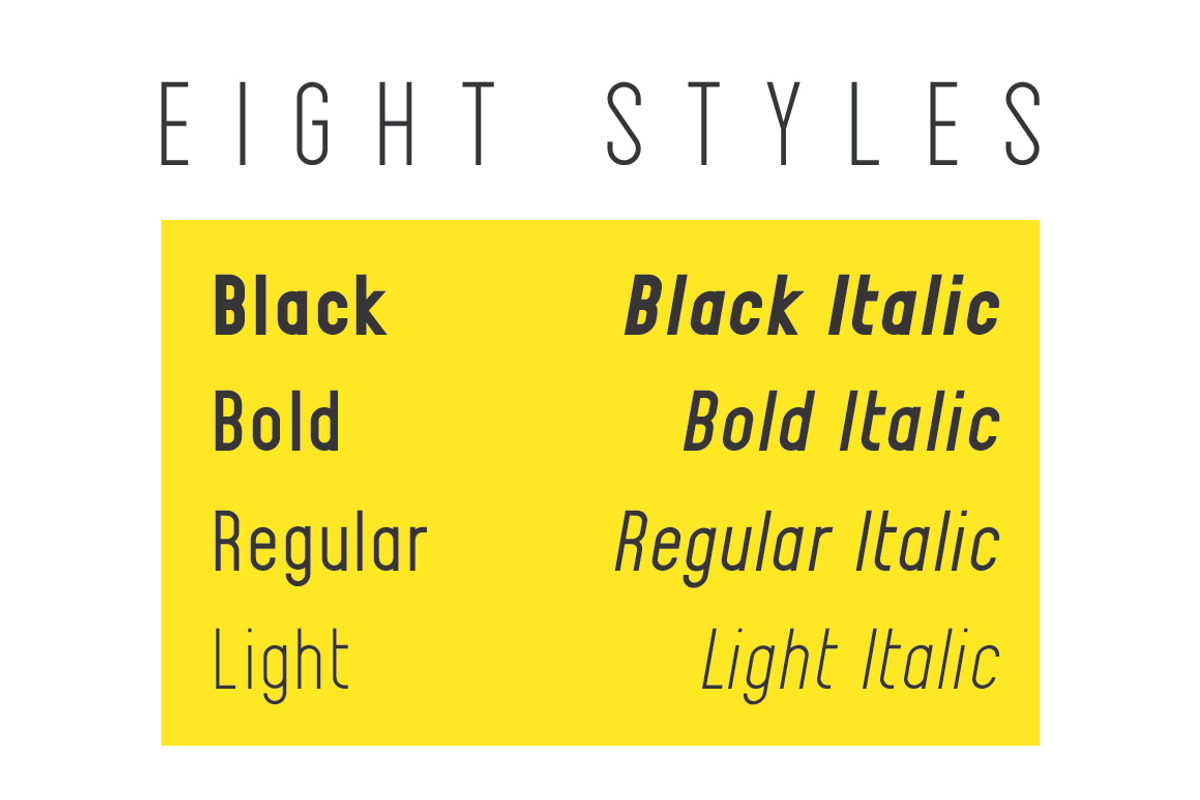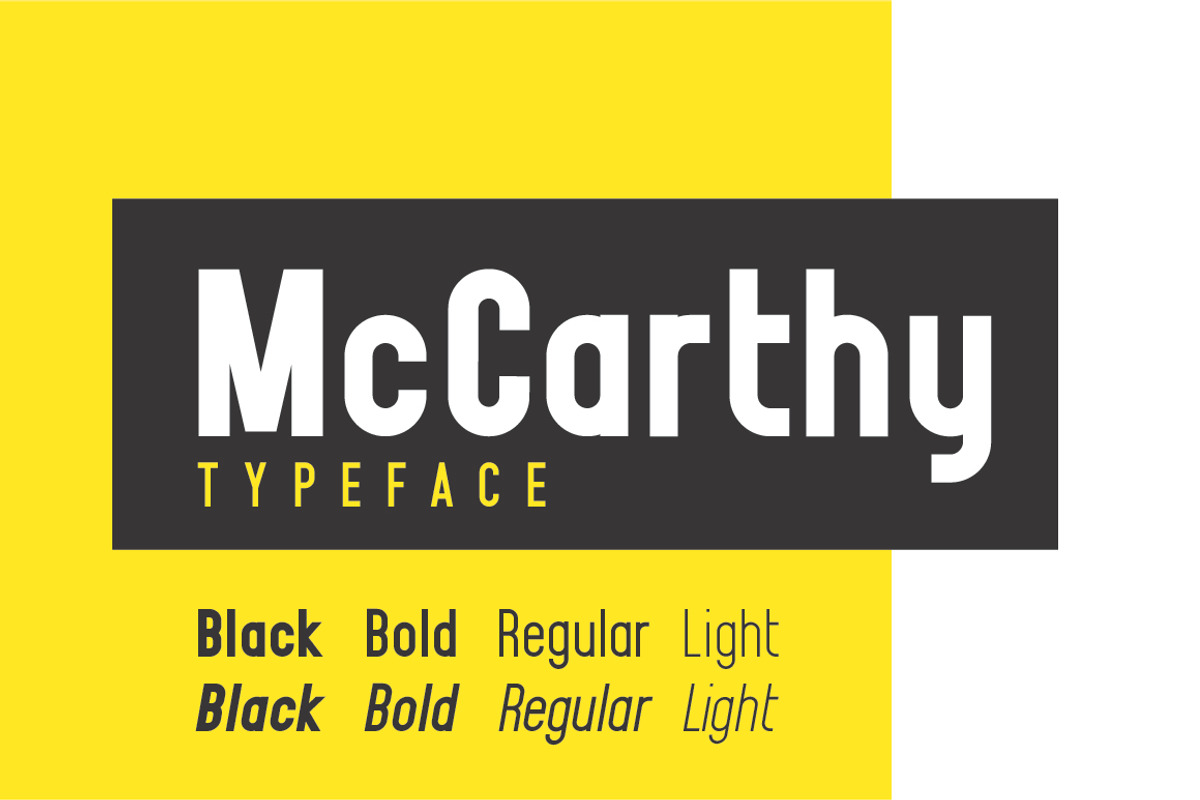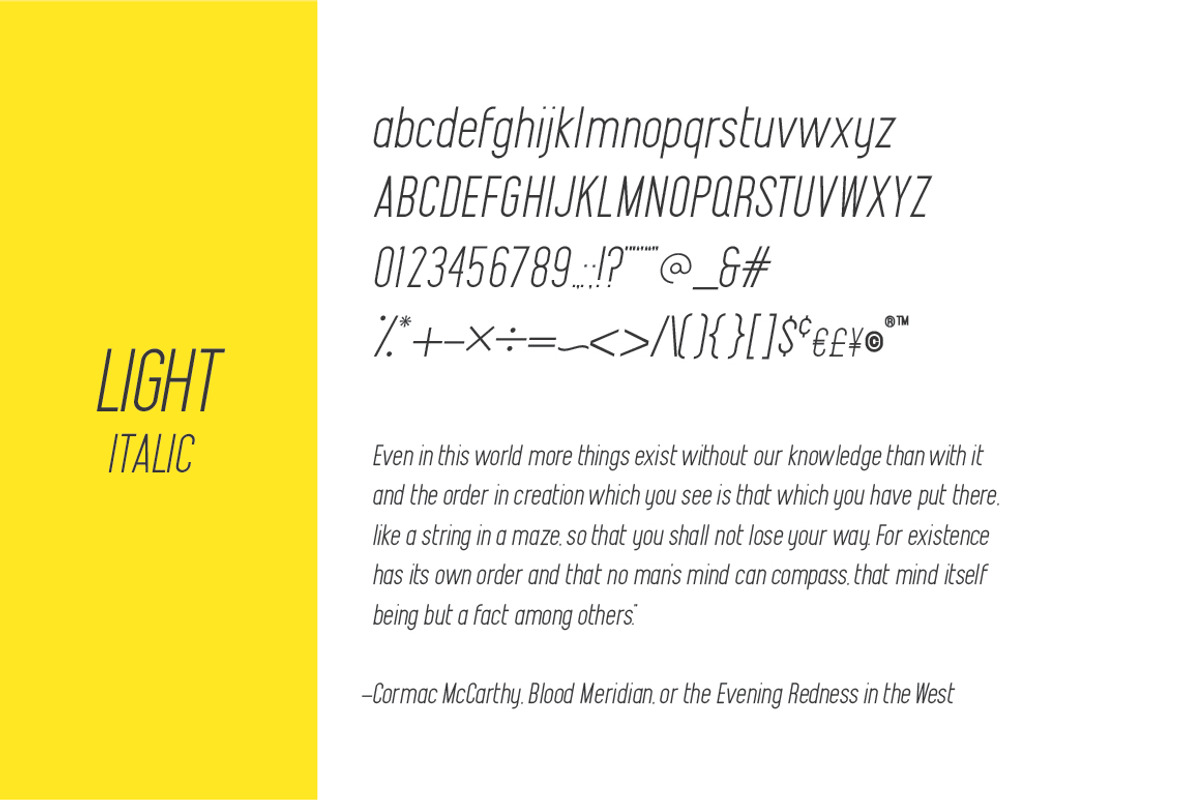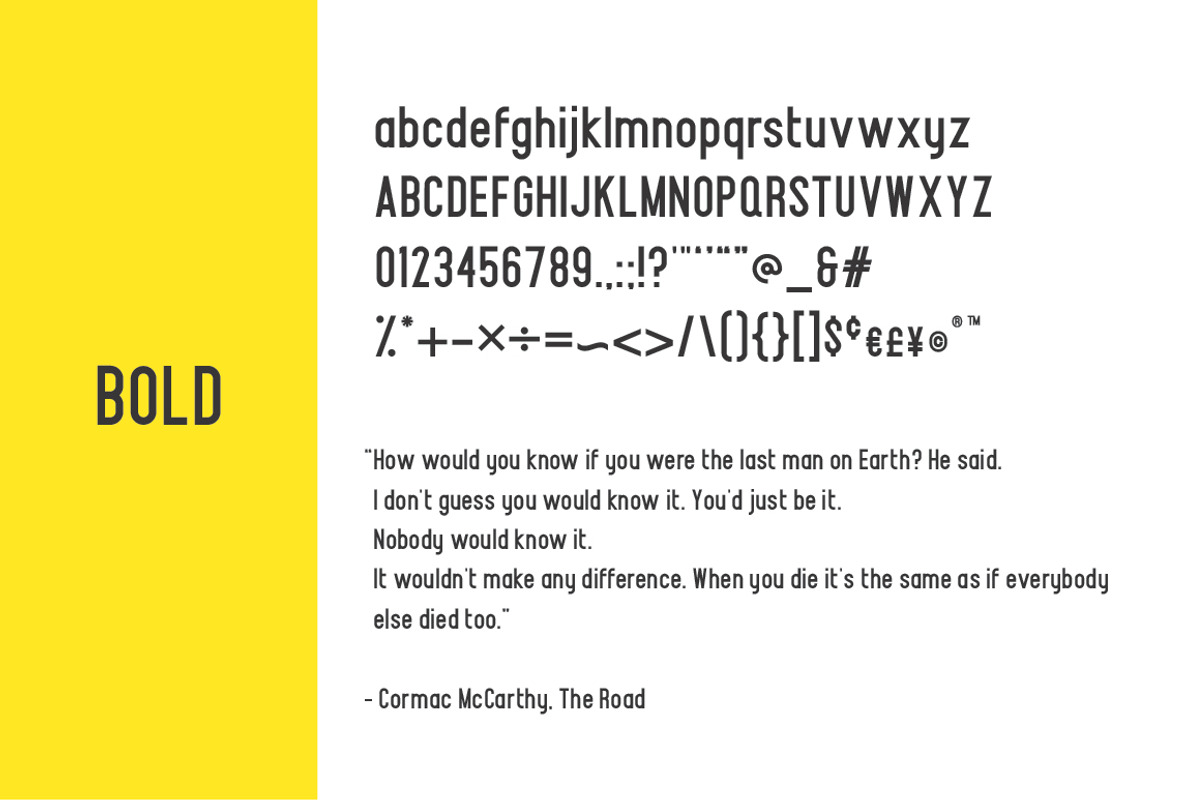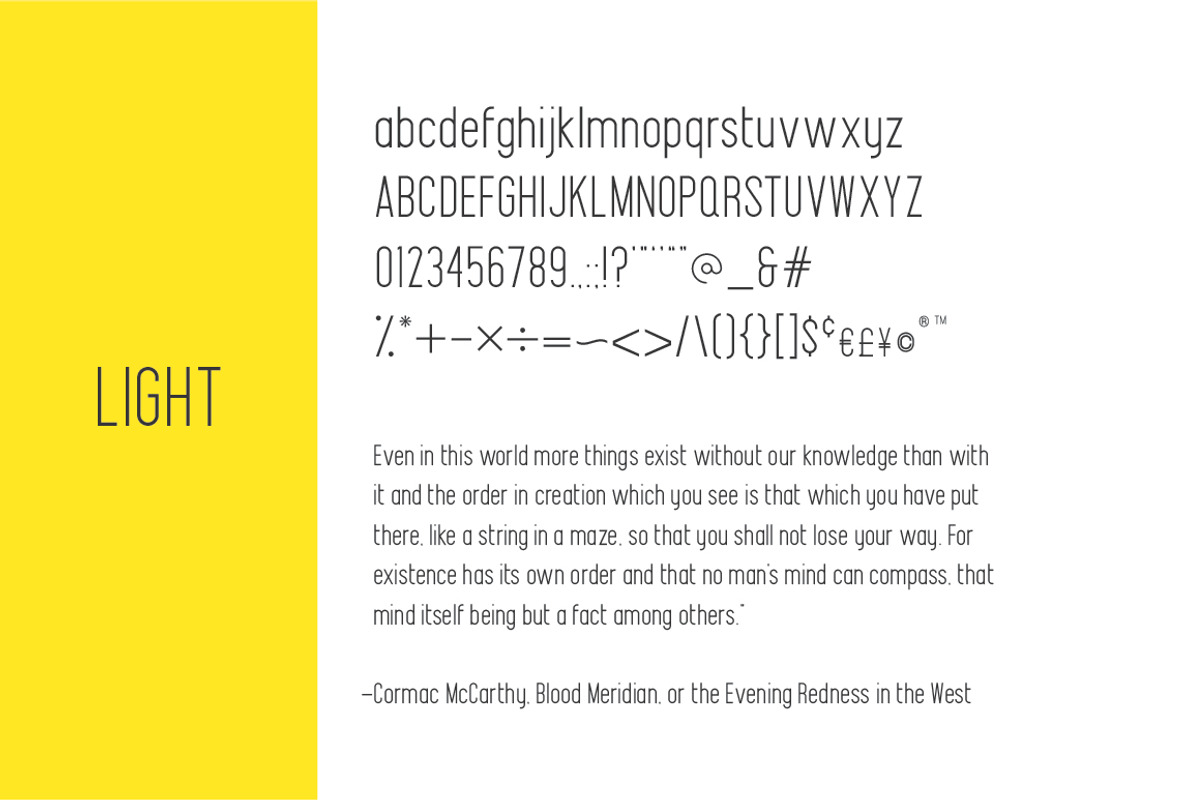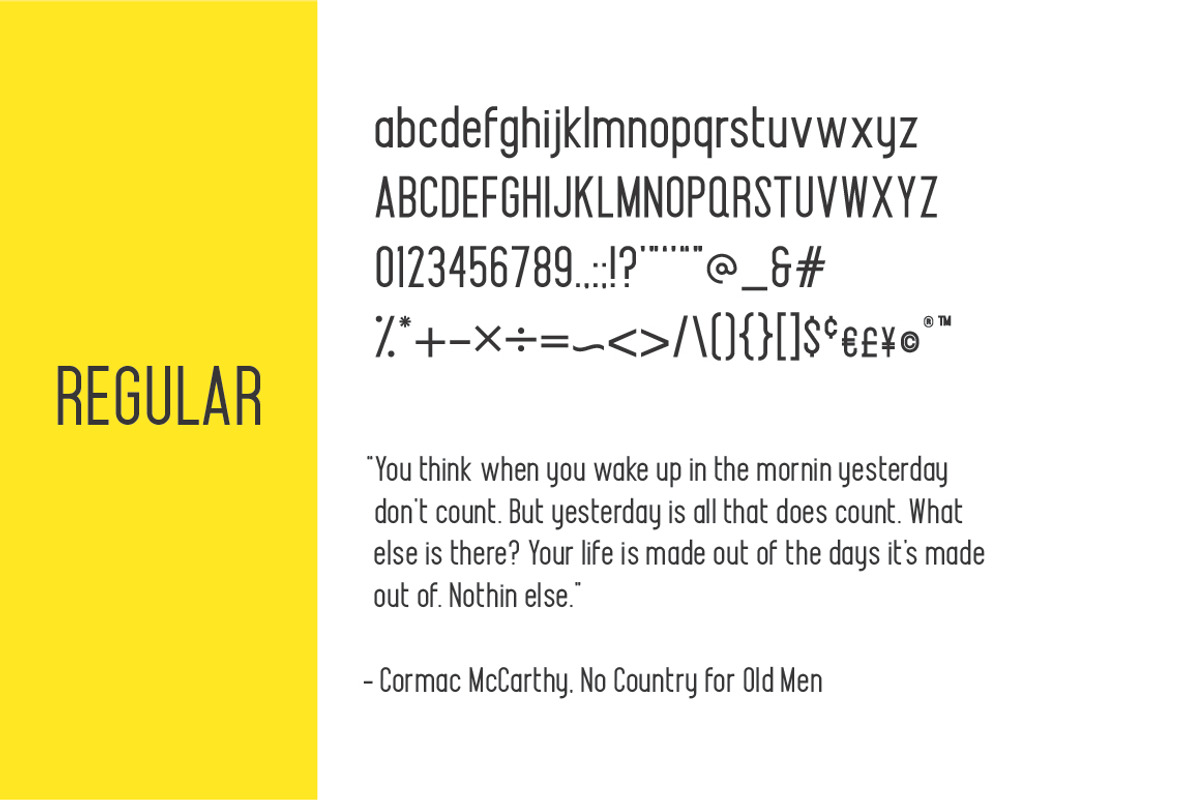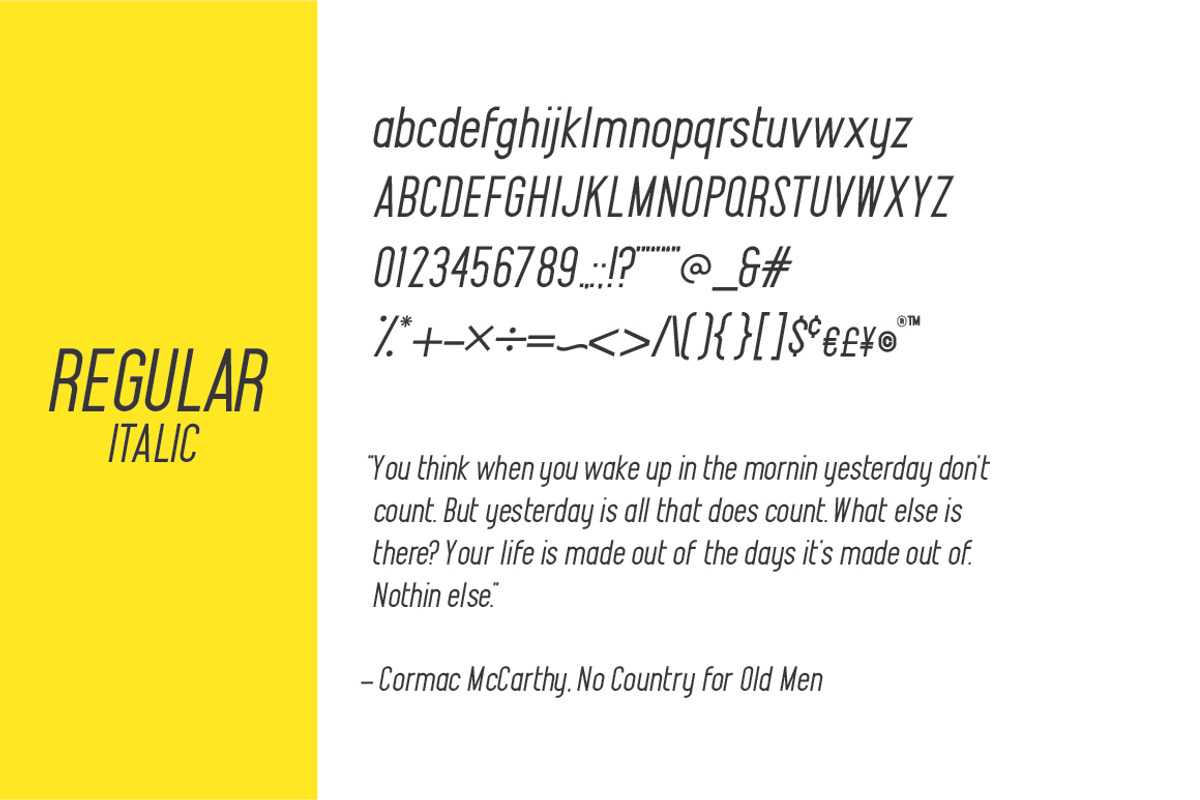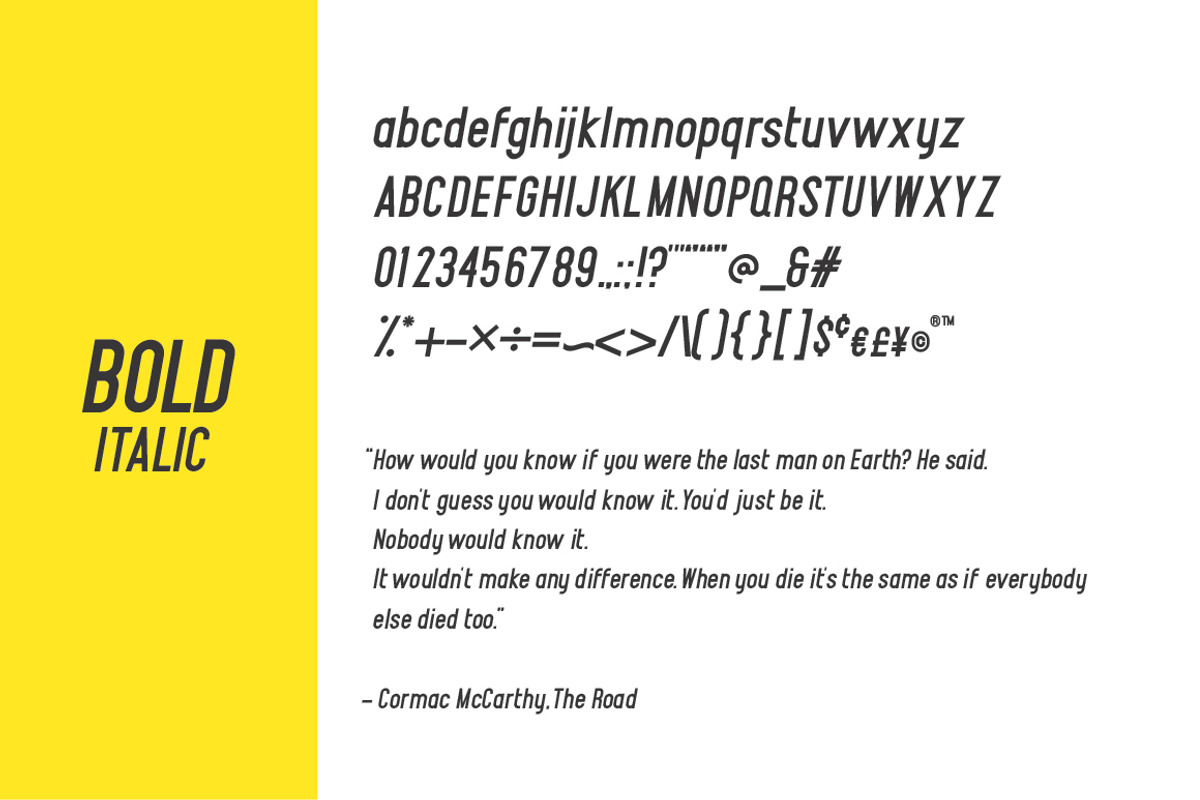
McCarthy Typeface - EIGHT Styles
McCarthy is a sans-serif typeface designed by Seth McWhorter, a graphic designer based in Atlanta, GA.
Eight styles included - Light / Light Italic / Regular / Regular Italic / Bold / Bold Italic / Black / Black Italic
Inspired by a lot of fonts.
Named for Corman McCarthy.
It may not be perfectly kerned, I had to leave some fun for the customer.
- Eight styles included - Light / Light Italic / Regular / Regular Italic / Bold / Bold Italic / Black / Black Italic Inspired by a lot of fon
- Current version only includes a basic character set.